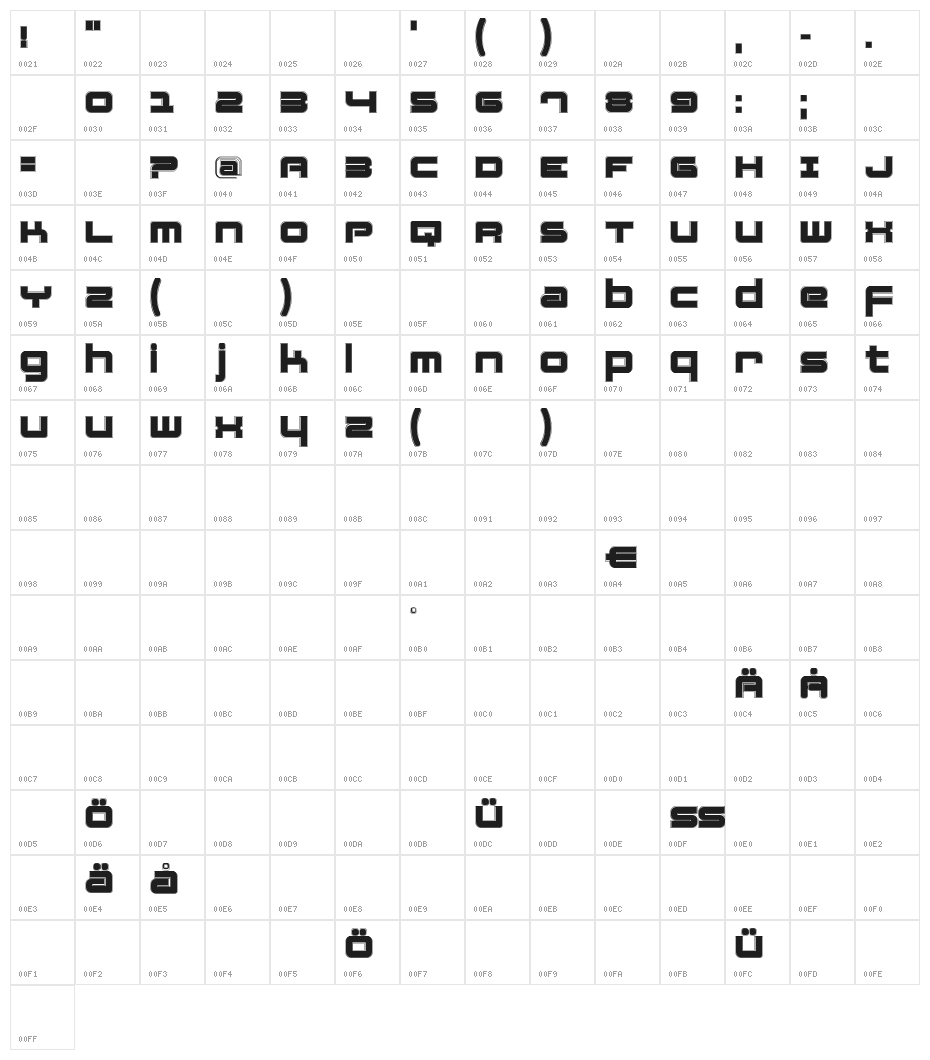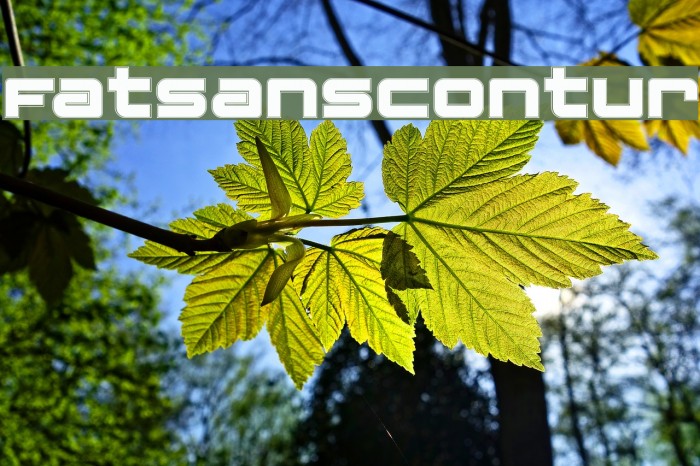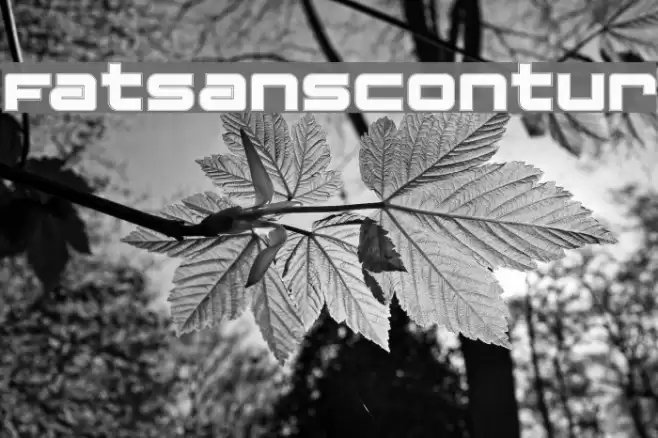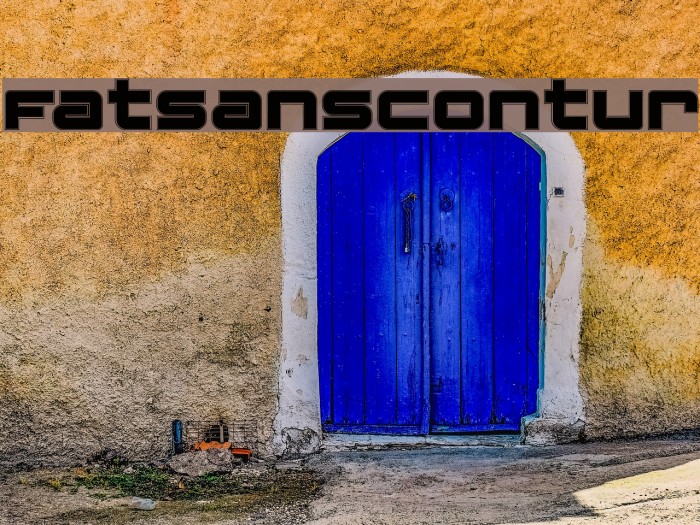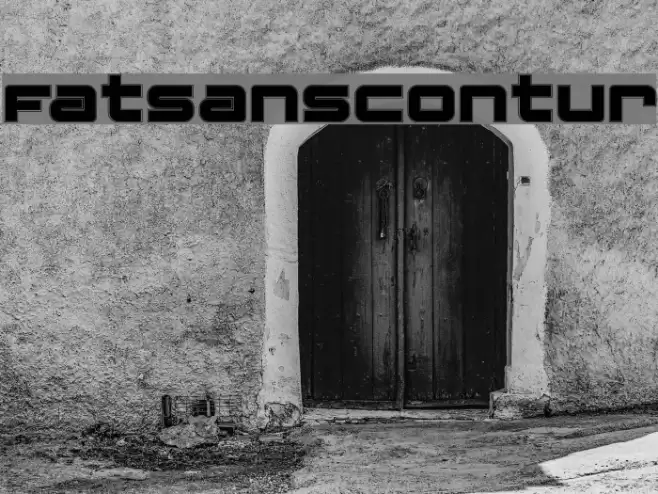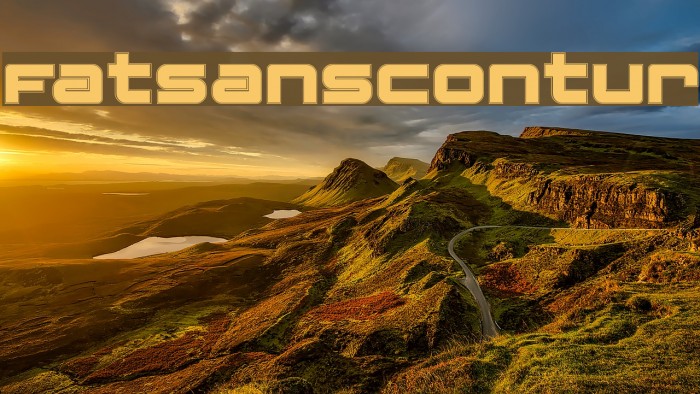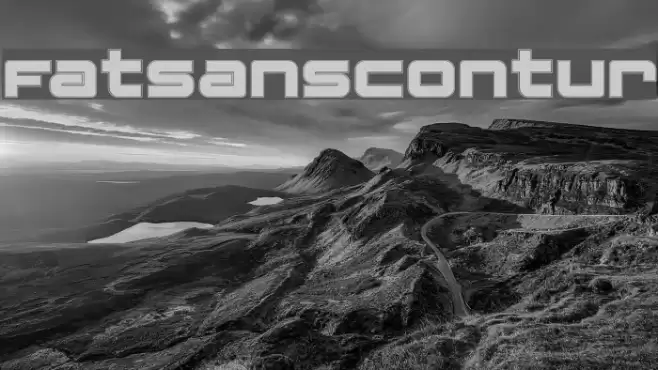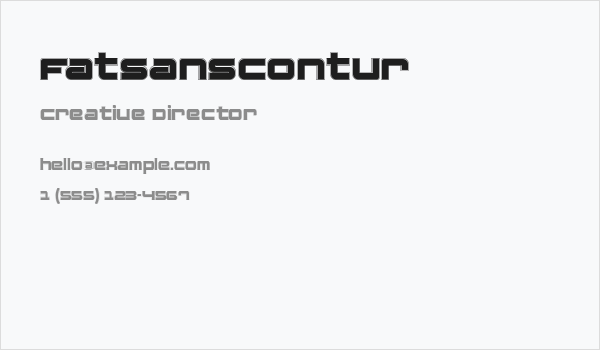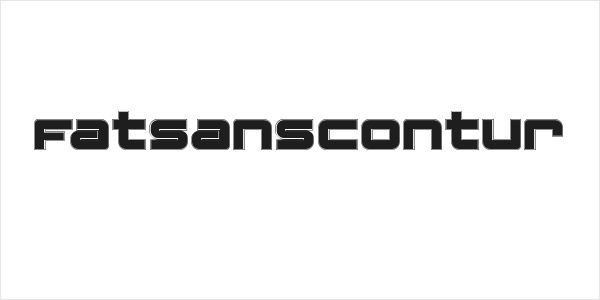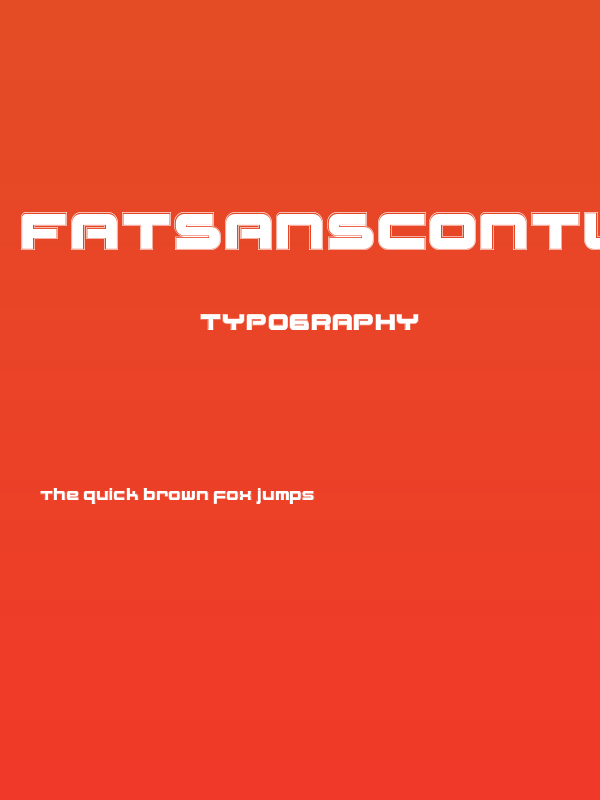
FatsansContur Font
FatsansContur Description
This font features a bold, geometric design with a distinct outline that gives it a modern and futuristic appearance. The characters are constructed with straight lines and sharp angles, creating a sense of precision and strength. The uppercase and lowercase letters maintain a consistent style, with the lowercase being slightly more rounded. The numerals and special characters follow the same design principles, ensuring uniformity across the typeface. The font's boldness and outlined style make it highly visible and attention-grabbing, suitable for impactful designs.
| Proposed Projects | Ideal for branding, posters, headlines, and any project requiring a strong, modern aesthetic. |